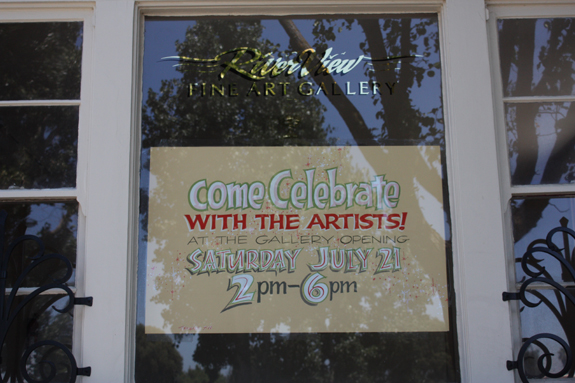
Stick with the hand lettering, and it can stand by you more and more, everyday, like a friend.
And you can expertly ( not shamelessly) promote all your endeavors
Gold Leaf, Showcards, watercolors and more.
Opening this gallery this Sat., July 21.
hand lettering... still keeps on giving